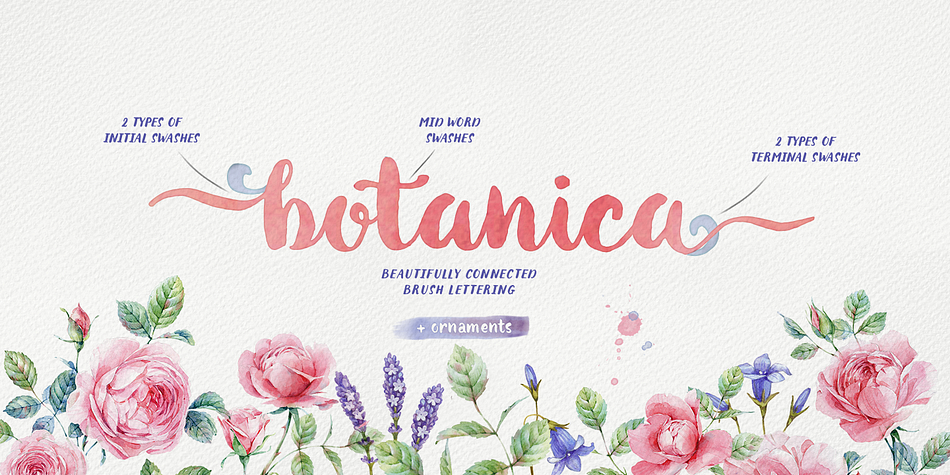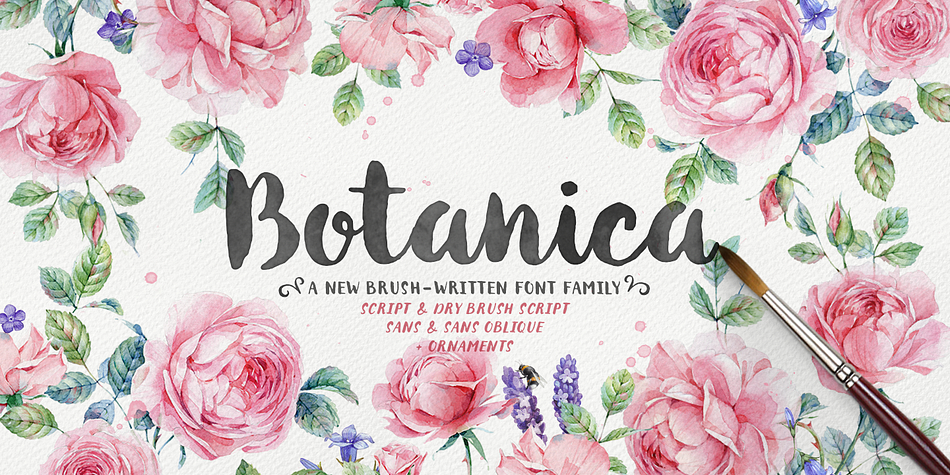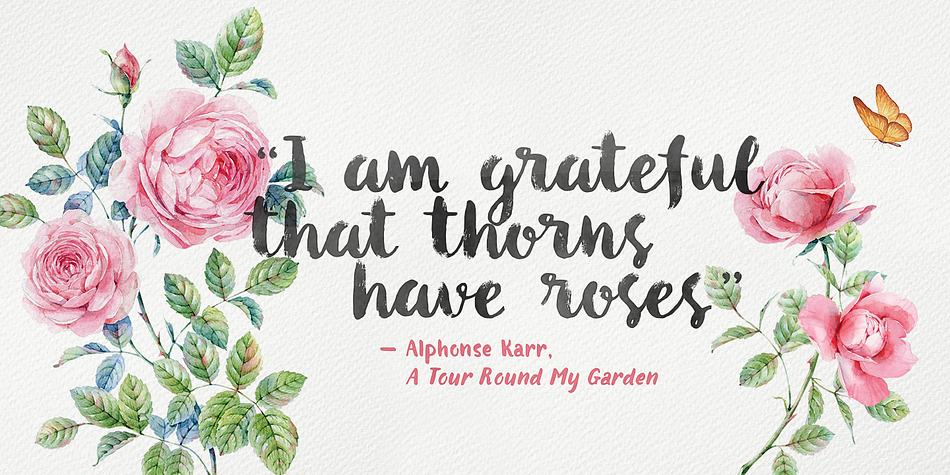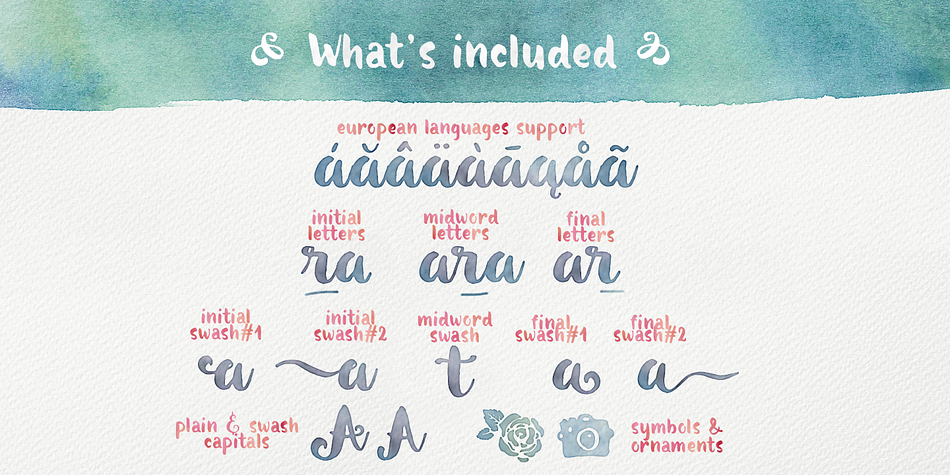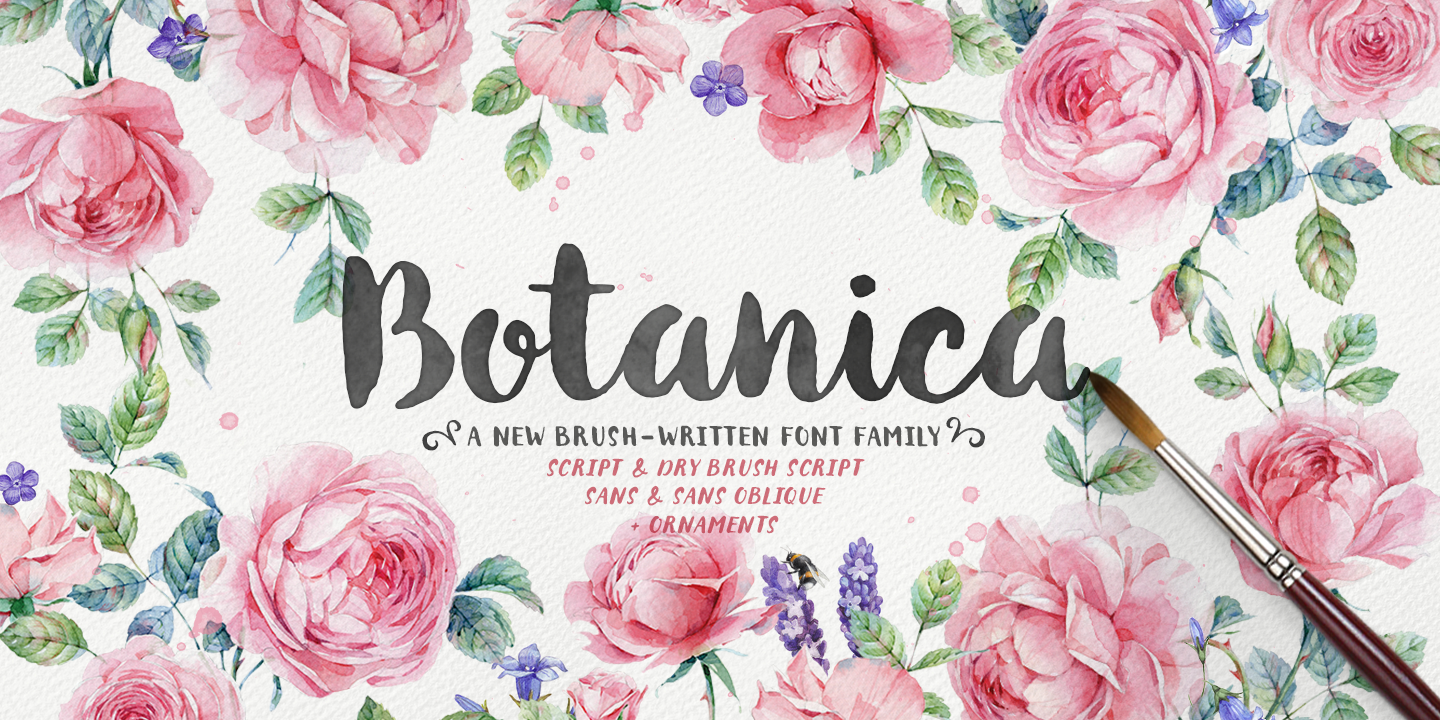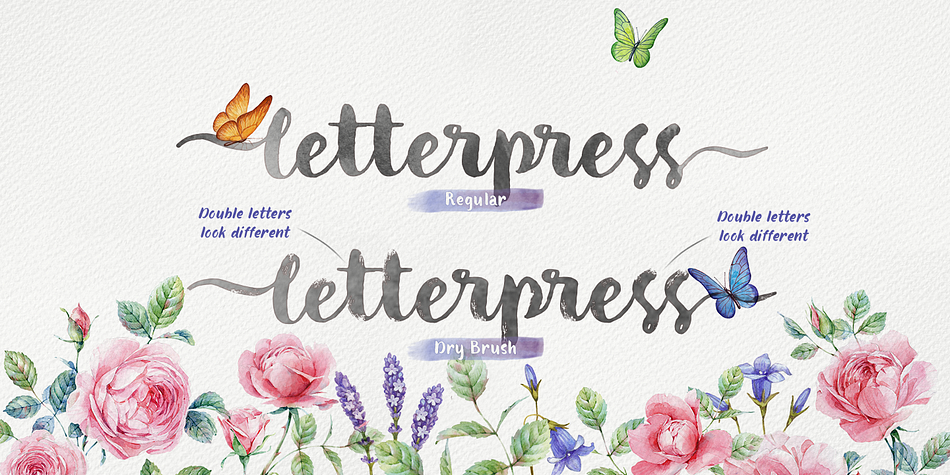
Designed by Elena Genova, Botanica is a multiple classification font family. This typeface has five styles and was published by My Creative Land.
Botanica is a 100% brush written font family with inky texture that was inspired by modern trends in brush lettering and design. The fonts look good both together or separately and possibilities are only limited by your imagination.
Two types of initial and terminal swashed makes the Script font a good companion in wedding invitations design.